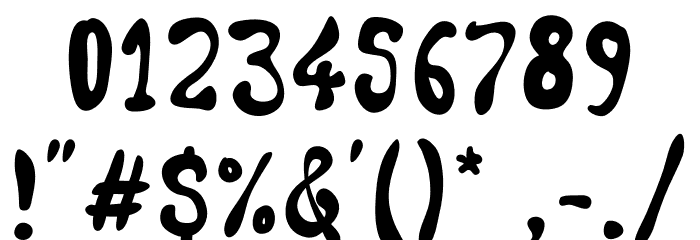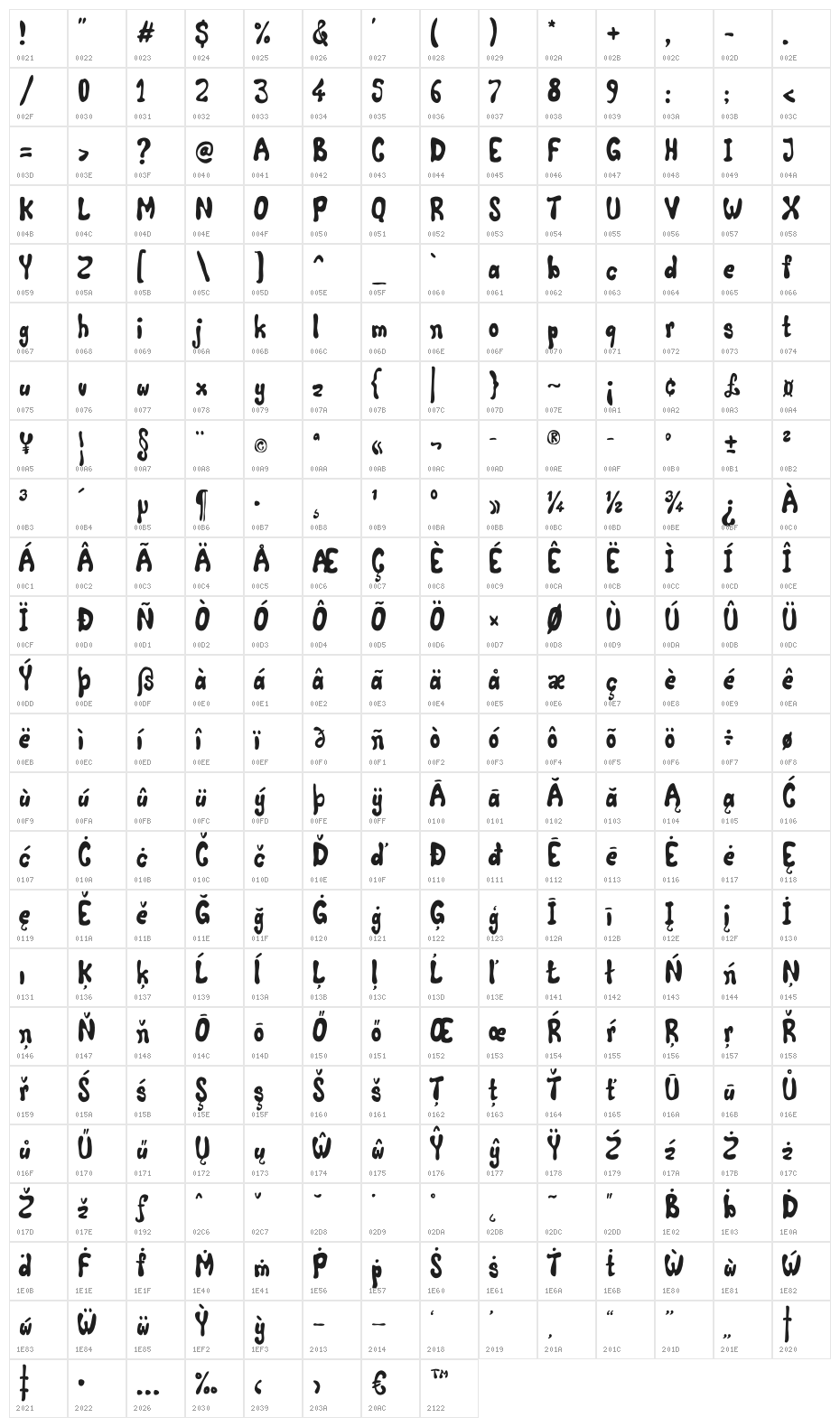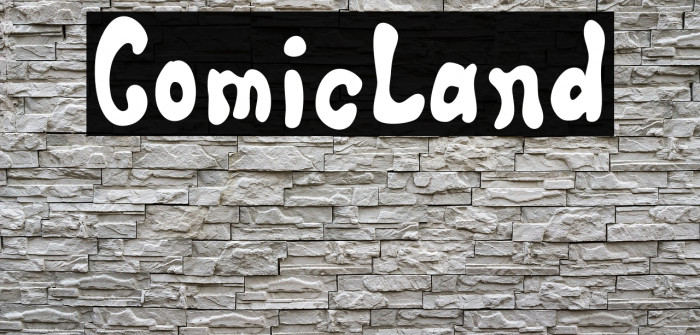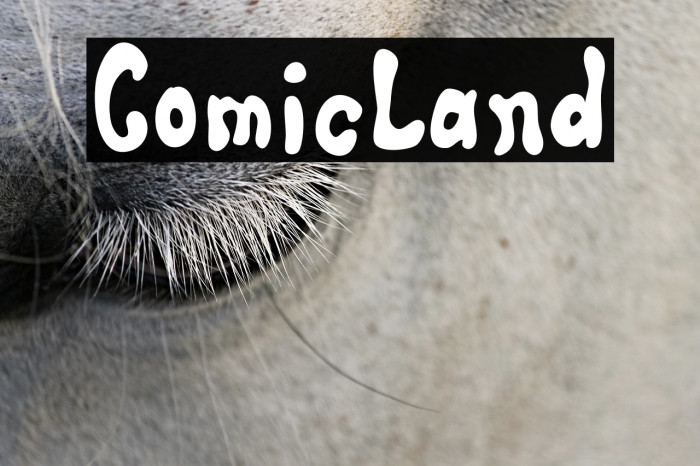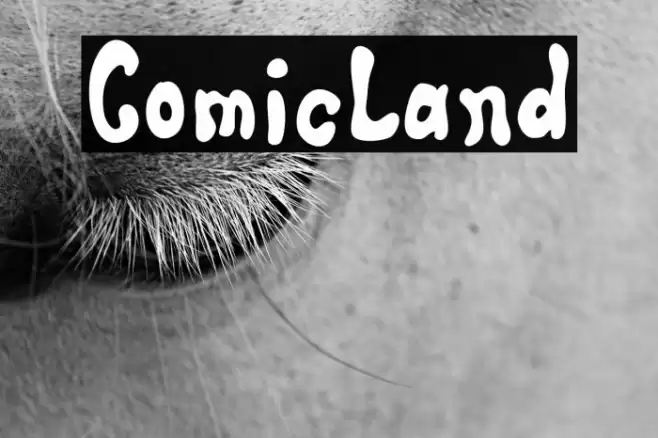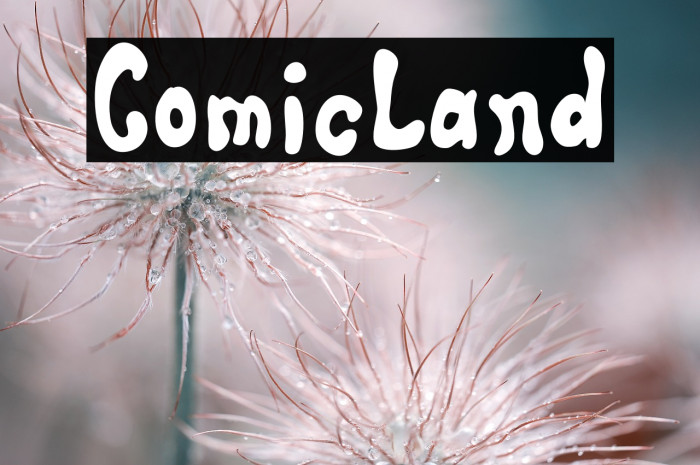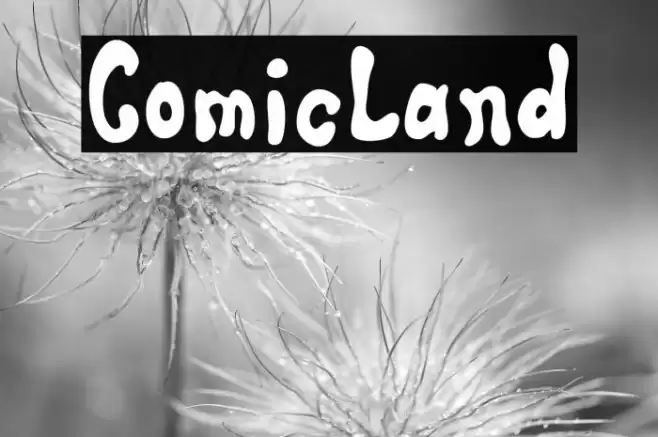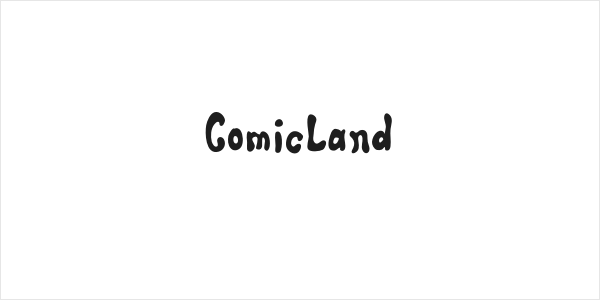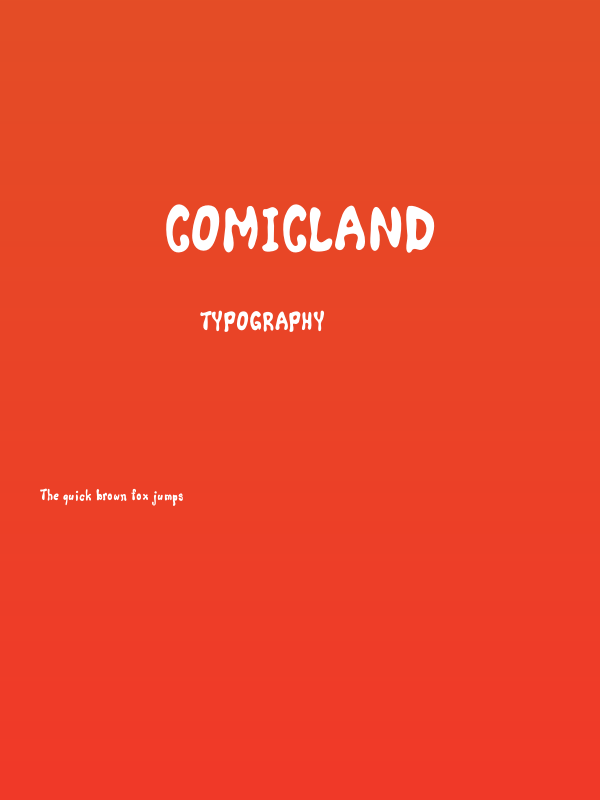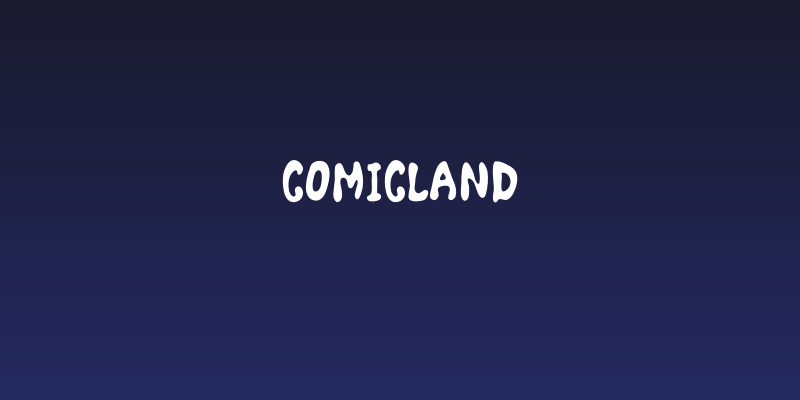
ComicLand Font
ComicLand Description
This playful and whimsical font features bold, rounded characters that exude a sense of fun and creativity. The letters have an irregular, hand-drawn appearance, giving them a unique and informal style. The strokes are thick and consistent, with a slight variation that adds to the font's charm. The overall look is reminiscent of comic book lettering, making it ideal for projects that require a lighthearted and approachable feel. The numbers and special characters maintain the same playful aesthetic, ensuring a cohesive look across all text elements.
| Proposed Projects | Ideal for comic books, children's books, playful branding, and creative posters. |